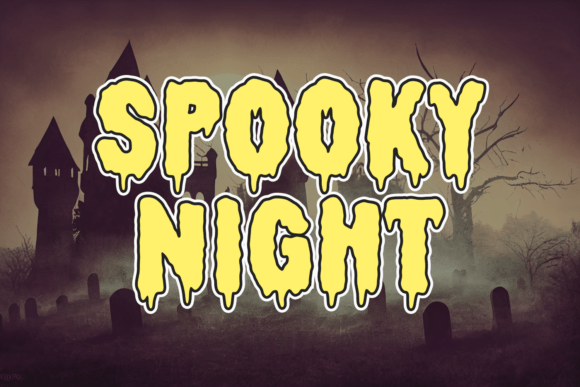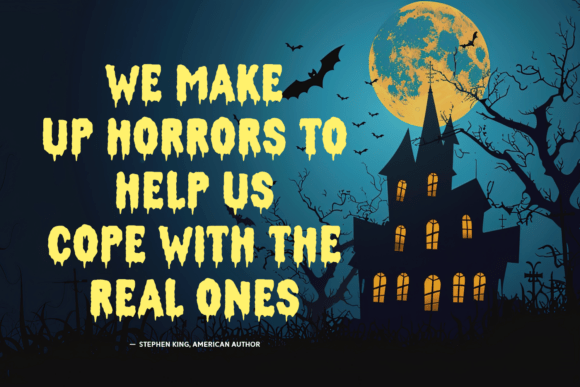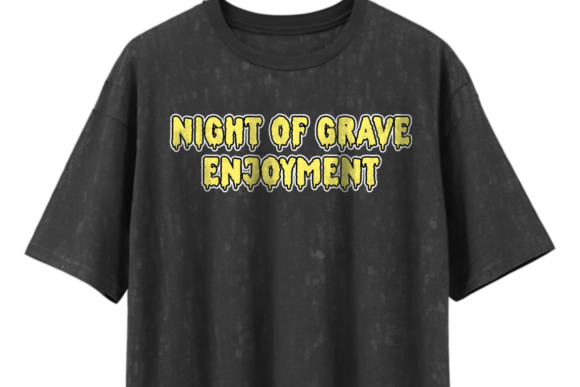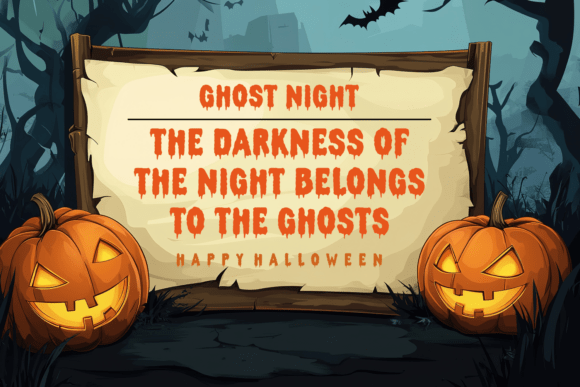
Introduction to Scary Demon Font
As the clock strikes midnight on a dark Halloween night, the streets come alive with an eerie glow. The sound of creaking doors and howling wind sets the tone for a night of thrills and chills. For designers, the moment of truth arrives when they need to create an unforgettable visual experience that captures the essence of the season. That’s where the Scary Demon Font comes in – a game-changing design resource that brings an air of mystery and suspense to any creative project.
Imagine being able to download a high-quality font that effortlessly transports your audience to a world of ghosts, goblins, and haunted mansions. With the Scary Demon Font, you can unleash your creativity and bring your spooky ideas to life with a transparent background that seamlessly integrates into any design. Whether you’re working on a free download project or a commercial venture, this font’s versatility and diversity make it an invaluable asset for designers.
Key Features of Scary Demon Font
- High-quality design resource ideal for creative projects, including horror-themed posters, flyers, and social media graphics.
- Unique, hand-drawn design with intricate details and textures, adding an extra layer of realism to any creative project.
- Perfect for designers looking for a bold, attention-grabbing font to elevate their designs and leave a lasting impression.
Honest Review: Scary Demon Font
I recently stumbled upon the Scary Demon Font, and I must say it’s been a great addition to my design resource library. This font is perfect for those creative projects that require a spooky or eerie vibe. The font is available for a free download, which is always a bonus.
One thing that really stands out about the Scary Demon Font is its high quality. The font is well-designed and looks great on a transparent background, making it easy to incorporate into any design. The font is also highly customizable, allowing you to adjust the size and style to fit your needs.
Here are some things that work well about the Scary Demon Font:
- Free download, making it a great resource for designers on a budget
- Customizable, allowing you to adjust the size and style to fit your needs
- Looks great on a transparent background
- Not suitable for all design projects, as it’s primarily designed for a spooky or eerie vibe
- May not be as versatile as other fonts, but that’s not necessarily a bad thing
Overall, I’m really impressed with the Scary Demon Font. It’s a great addition to any design library and is sure to add a touch of spookiness to any creative project. ⚠️ Just be aware of its limitations and use it accordingly. ✨
Scary Demon Font
Design Resource for Your Creative Project
The Scary Demon Font is a high-quality design resource perfect for adding a spooky touch to your creative project. With its unique and eerie design, it’s ideal for Halloween-themed projects, horror movies, or any other creative endeavor that requires a dark and mysterious atmosphere.
Tips for Getting the Most Out of Scary Demon Font
To get the most out of the Scary Demon Font, try experimenting with different font sizes, colors, and combinations. You can also use it in conjunction with other design elements, such as images and graphics, to create a unique and eye-catching design.
The Scary Demon Font is perfect for a variety of creative projects, including:
- Halloween-themed posters and social media graphics.
- Horror movie titles and credits.
- Spooky-themed website design.